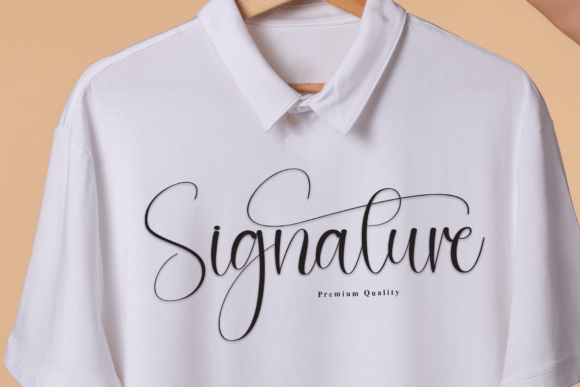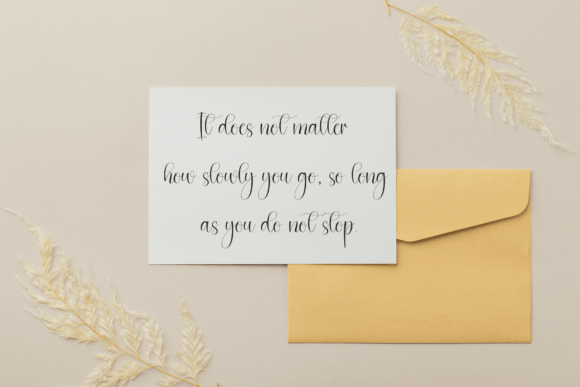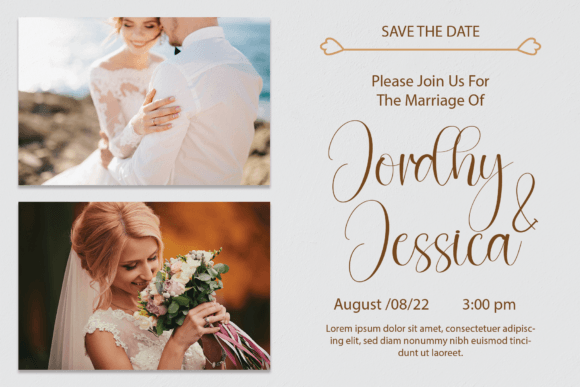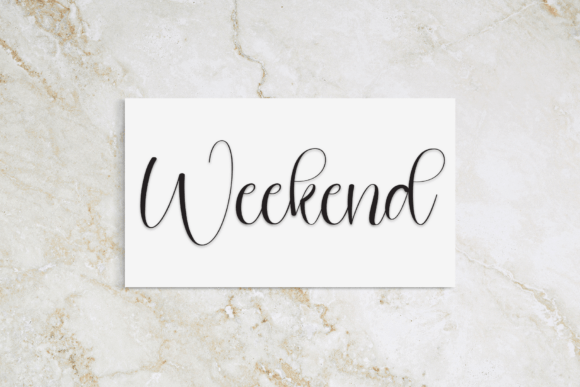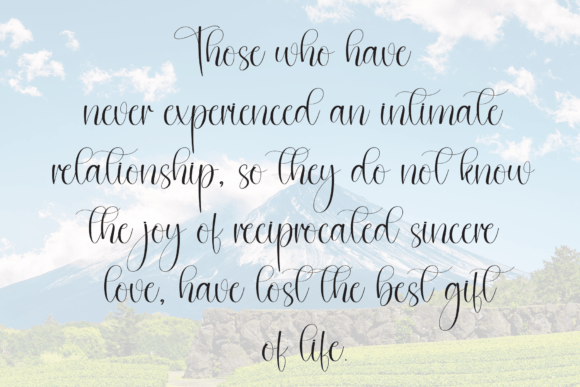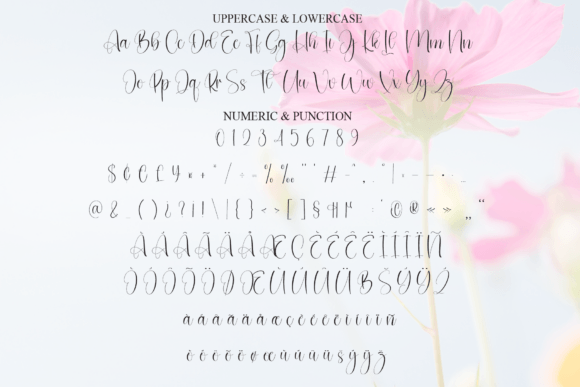
When Handwritten Perfection Meets Design
Have you ever been scribbling down ideas for a creative project, only to stop and wonder if your handwriting would make the cut? That’s exactly what happened to me when I stumbled upon the Beautiful Font – a stunning, handwritten font that’s so lifelike, you’ll swear it was written by hand.
This beautiful font is more than just a pretty face; it’s a powerful tool for designers looking to add a personal touch to their work. Whether you’re crafting invitations, greeting cards, or other creative projects, Beautiful Font is the perfect addition to your toolkit. Its flowing, elegant letters evoke a sense of warmth and friendliness, making it an instant favorite among designers.
With Beautiful Font, you can infuse your designs with a touch of human emotion and charm. Its versatility and beauty make it a valuable asset for any designer looking to elevate their work and connect with their audience on a deeper level.
Beautiful Font Key Features
- Unique Characteristics: Includes 500+ glyphs, including Latin, Cyrillic, and Greek alphabets, as well as various ligatures and swashes
Designer Review: Beautiful Font
As a designer, I’ve had the chance to work with many fonts, and “Beautiful Font” is definitely one of the most visually appealing ones I’ve come across.
- Unique and elegant design: The font’s delicate curves and subtle flair make it perfect for creating a sense of luxury and sophistication.
- High legibility: Despite its ornate appearance, the font is surprisingly easy to read, even at smaller font sizes.
- Great for headings: The font’s bold and dramatic feel makes it perfect for headings, titles, and other prominent text elements.
- Limited font sizes: While the font looks great at larger sizes, it can become quite pixely at smaller font sizes.
- May not be suitable for body text: The font’s ornate design may make it difficult to read for extended periods, especially in body text.
While “Beautiful Font” has its limitations, I think it’s a great choice for designers looking to add a touch of elegance and sophistication to their projects. Just be sure to use it sparingly and in the right contexts.
Getting the Most Out of Beautiful Font
To get the most out of Beautiful Font, use it for:
Headlines and titles to add a touch of elegance and sophistication.
Body text to create a clean and modern look.
Emphasize important information by using bold or italic text.
Use Beautiful Font for:
Business presentations and proposals.
Marketing materials and social media graphics.
Wedding invitations and event materials.
Alternatives to “Beautiful Font” for Designers
Comparison to Beautiful Font: Open Sans is more minimalist and lacks the ornate details of Beautiful Font, making it a better choice for digital interfaces. It is also more versatile and suitable for a wide range of applications.